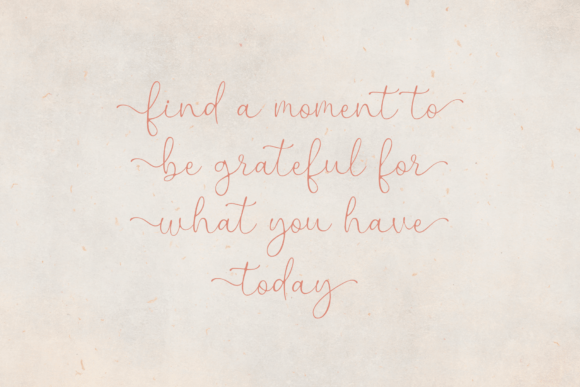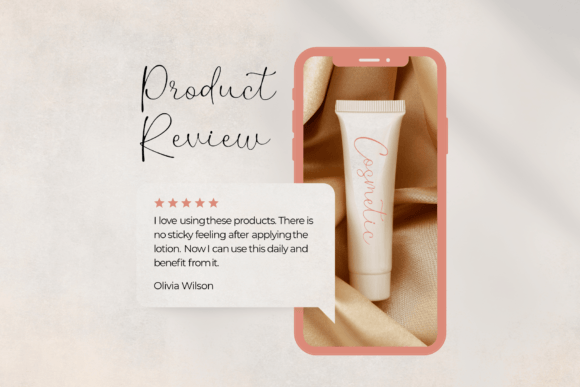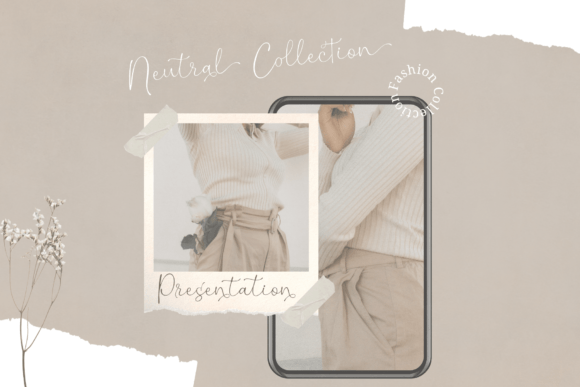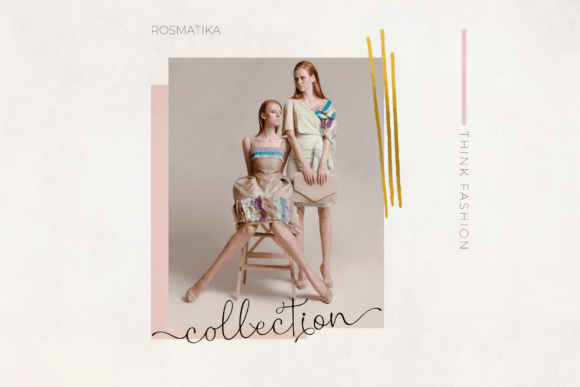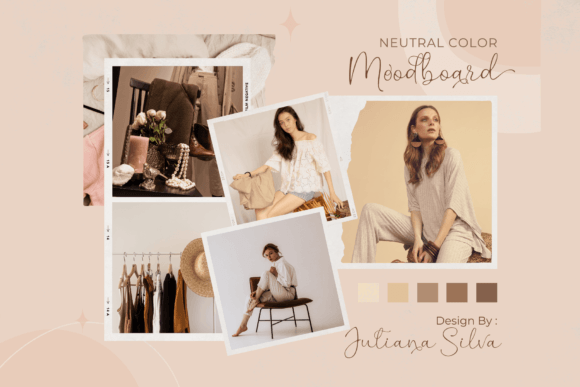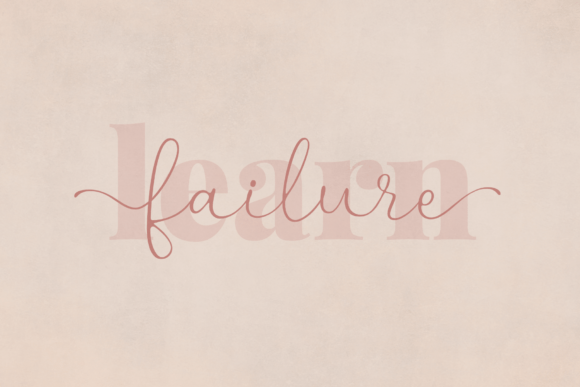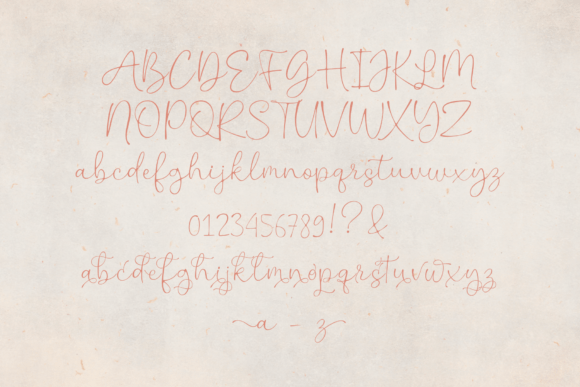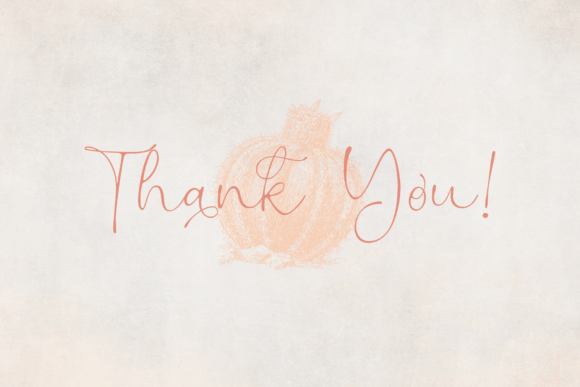
Xerically Font
About Xerically Font
Xerically is a natural, elegant, and gracefully flowing handwritten font designed to bring a touch of beauty to your creative projects. With its harmonious and well-balanced characters, this font seamlessly complements a diverse range of designs, adding a sophisticated yet approachable flair to your work. Xerically, with its organic charm, is a versatile choice that adapts effortlessly to various design contexts.
The flowing strokes and carefully crafted characters of Xerically make it a delightful choice for a wide array of applications. Whether you’re working on invitations, branding materials, packaging, or any design that requires a personal and elegant touch, Xerically rises to the occasion. Its natural flow creates a sense of authenticity, making it suitable for projects that aim to convey a genuine and heartfelt message.
One standout feature of Xerically is its PUA encoding, enhancing your creative freedom. This encoding allows easy access to an extensive array of glyphs and swashes, providing you with the tools to add unique and decorative elements to your designs. With Xerically, your creative journey becomes more intuitive, allowing you to experiment with different styles and create designs that are truly one-of-a-kind.
Imagine incorporating Xerically into a wedding invitation where each letter adds a touch of elegance and romance. The font’s versatility makes it equally fitting for promotional materials, social media posts, or any project that demands a handwritten charm. Xerically becomes more than just a font; it becomes a visual storyteller that conveys your message with grace and authenticity.
Whether you’re a seasoned designer or someone exploring the world of creativity, Xerically offers a seamless and enjoyable experience. Its PUA encoding ensures that you can easily unlock the full potential of this font, adding a layer of uniqueness to your designs. Embrace the natural beauty of Xerically and let its elegant flow enhance your creative expressions.